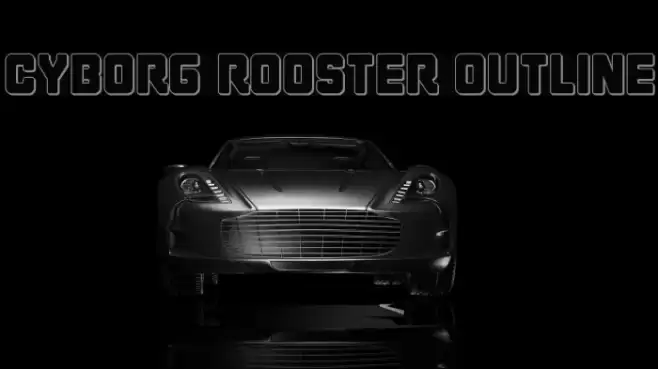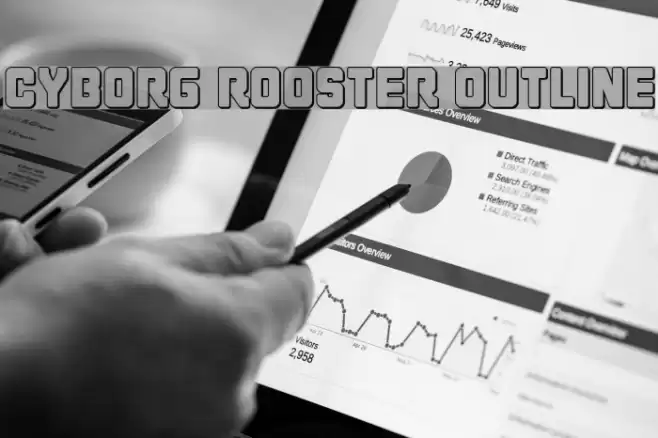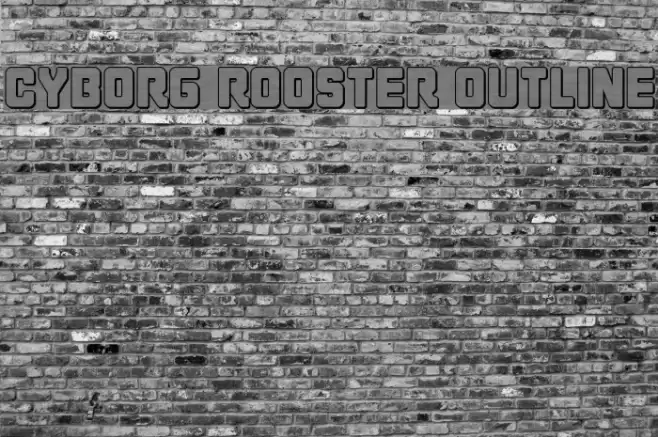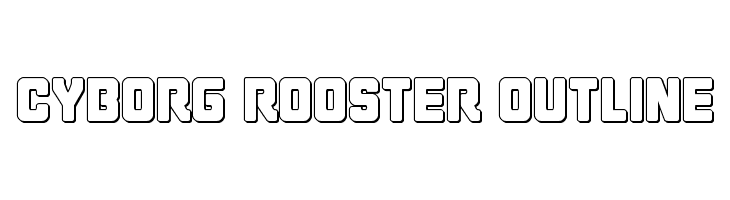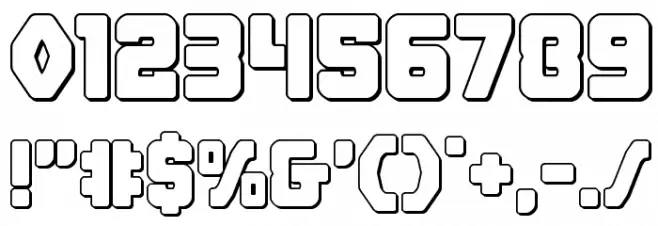
Cyborg Rooster Outline Font
Cyborg Rooster Outline Description
This font features a bold, futuristic design with a distinct outline style. Each character is crafted with a geometric, block-like structure, giving it a robotic and mechanical appearance. The uppercase letters are uniform in height, with sharp angles and straight lines that create a sense of precision and modernity. The numbers and special characters maintain this cohesive style, ensuring consistency across all elements. The outline effect adds depth and dimension, making the font stand out in any design. Its unique aesthetic is ideal for projects that require a tech-inspired or industrial look.
A bold, futuristic outline font with a geometric, robotic design from Sci-fi fonts.
- Proposed Projects: Ideal for tech-themed designs, video game titles, sci-fi posters, and branding that requires a modern, industrial feel.